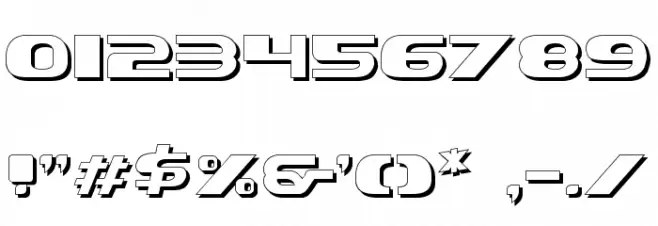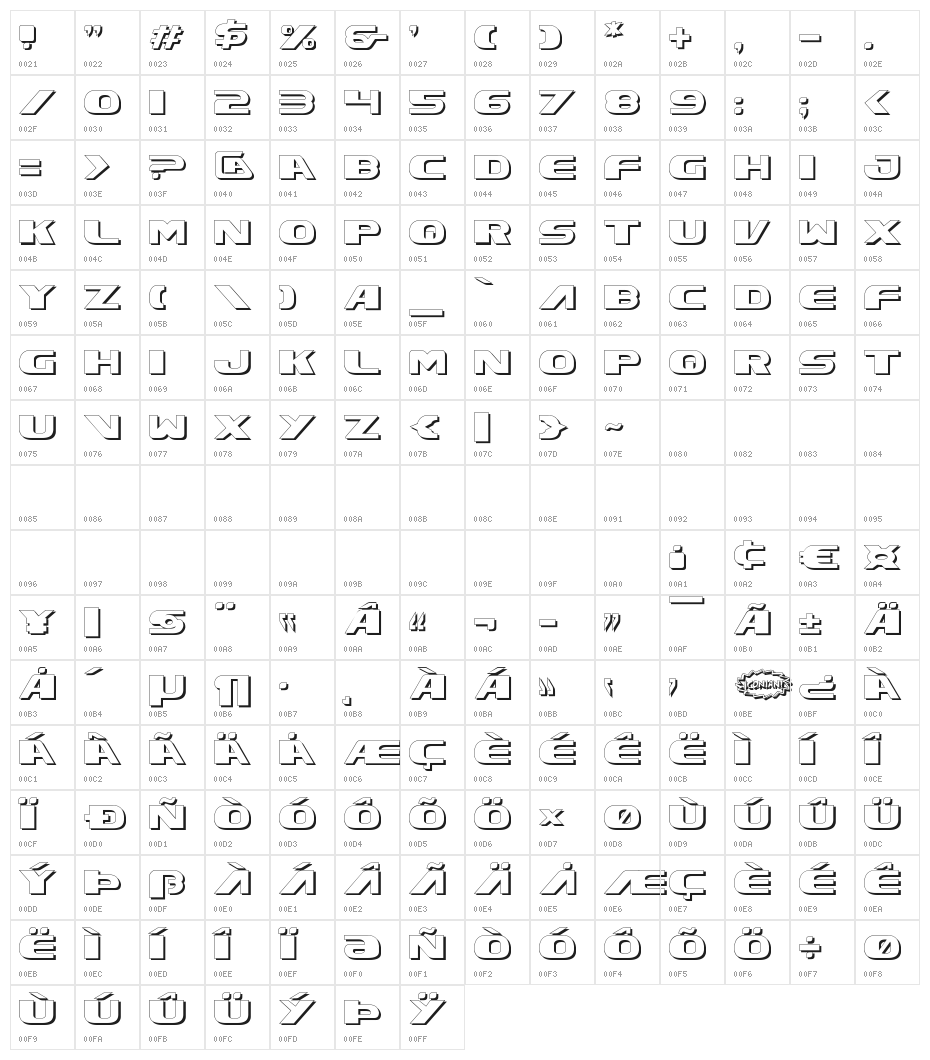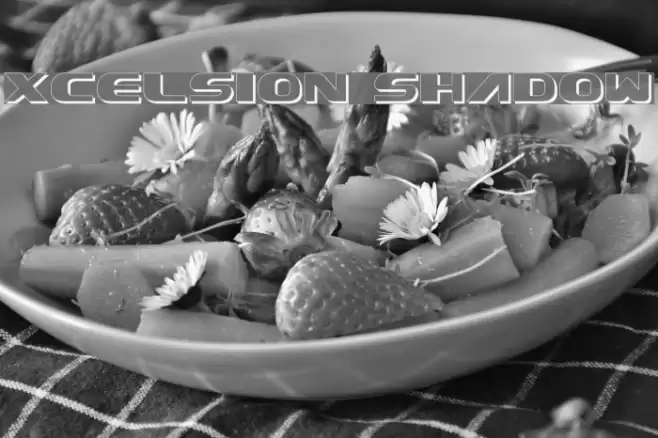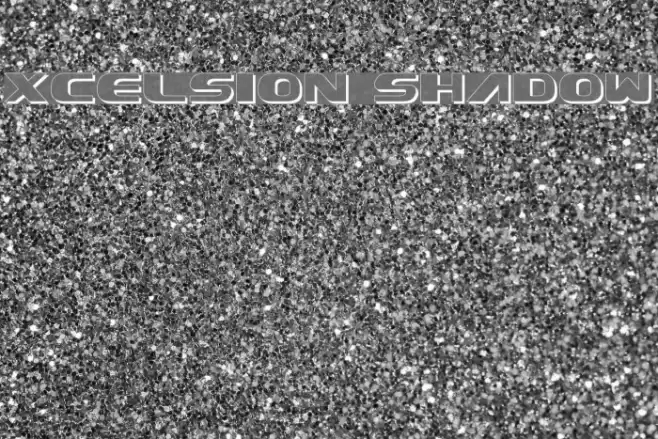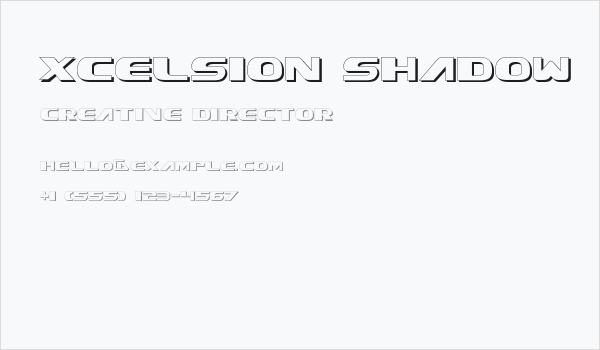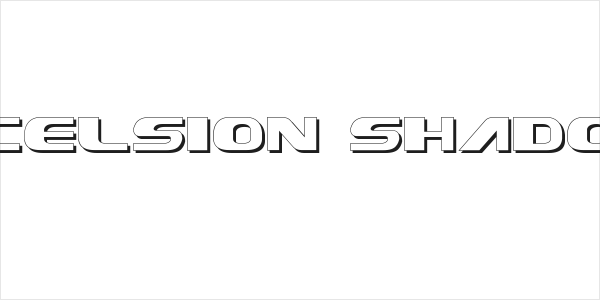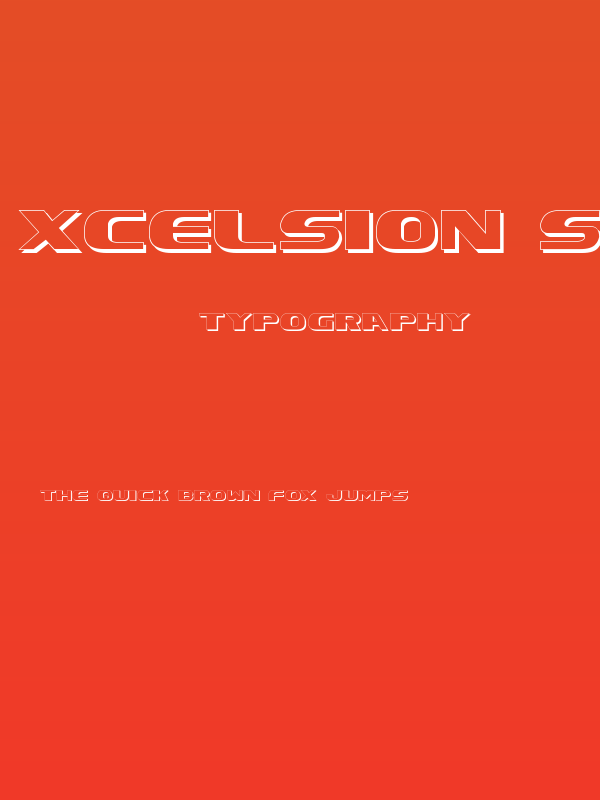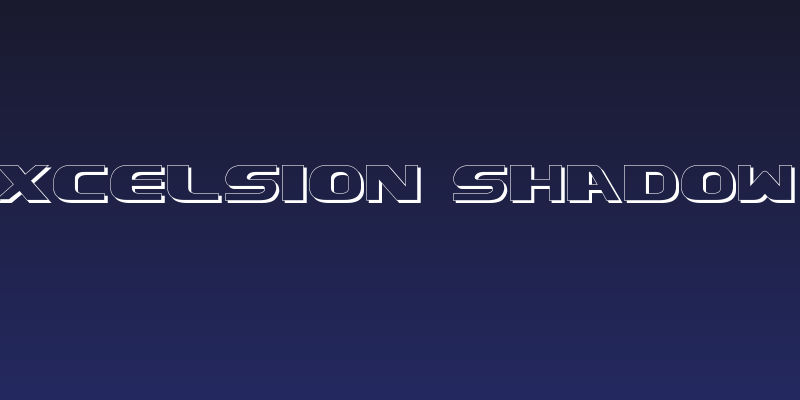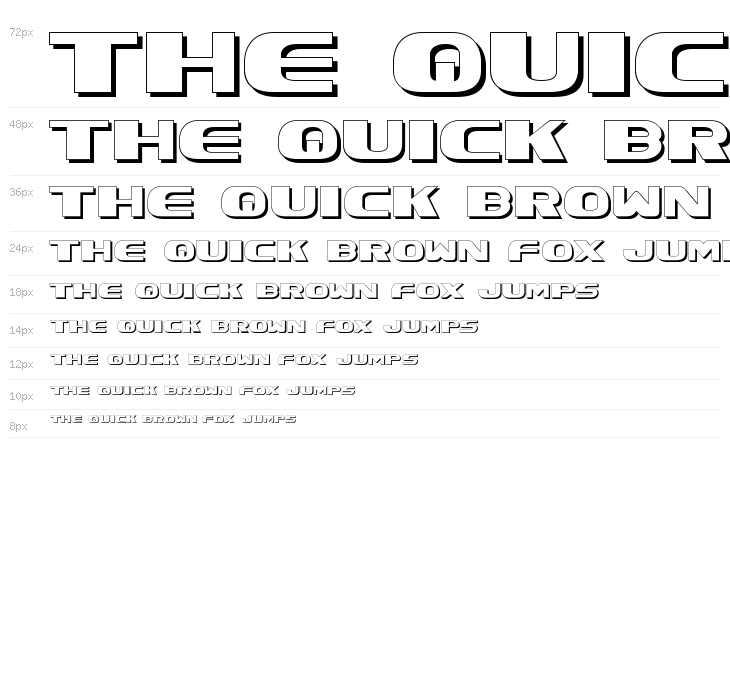
Xcelsion Shadow Font
Xcelsion Shadow Description
This font features a bold, geometric design with a distinct shadow effect that gives it a three-dimensional appearance. The uppercase and lowercase letters maintain a consistent width, creating a uniform look across the alphabet. The numbers and special characters are designed to match the boldness and style of the letters, ensuring a cohesive appearance. The shadow effect adds depth, making it ideal for eye-catching designs. The font's clean lines and modern aesthetic make it suitable for various creative projects.
| Proposed Projects | Ideal for posters, logos, headlines, and any design requiring a modern, impactful look. |